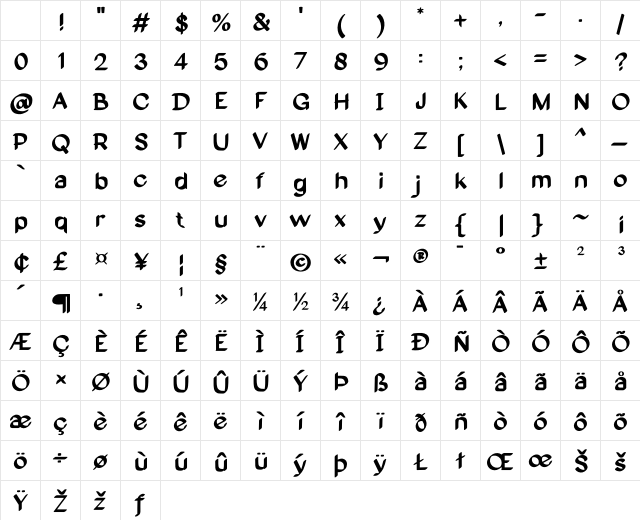
Complete Disputed Housing Regular glyph index. Displaying only characters natively supported by Disputed Housing Regular font.
Disputed Housing is a composed and adaptable typeface that performs quietly and consistently across a wide range of design contexts.